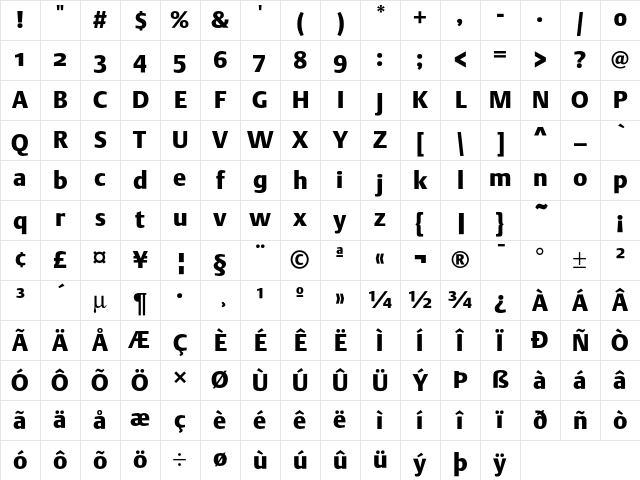
DTLArgoST Black Free Font
DTLArgoST Black
Design Context for DTLArgoST
DTLArgoST is a composed and adaptable typeface that performs quietly and consistently across a wide range of design contexts.